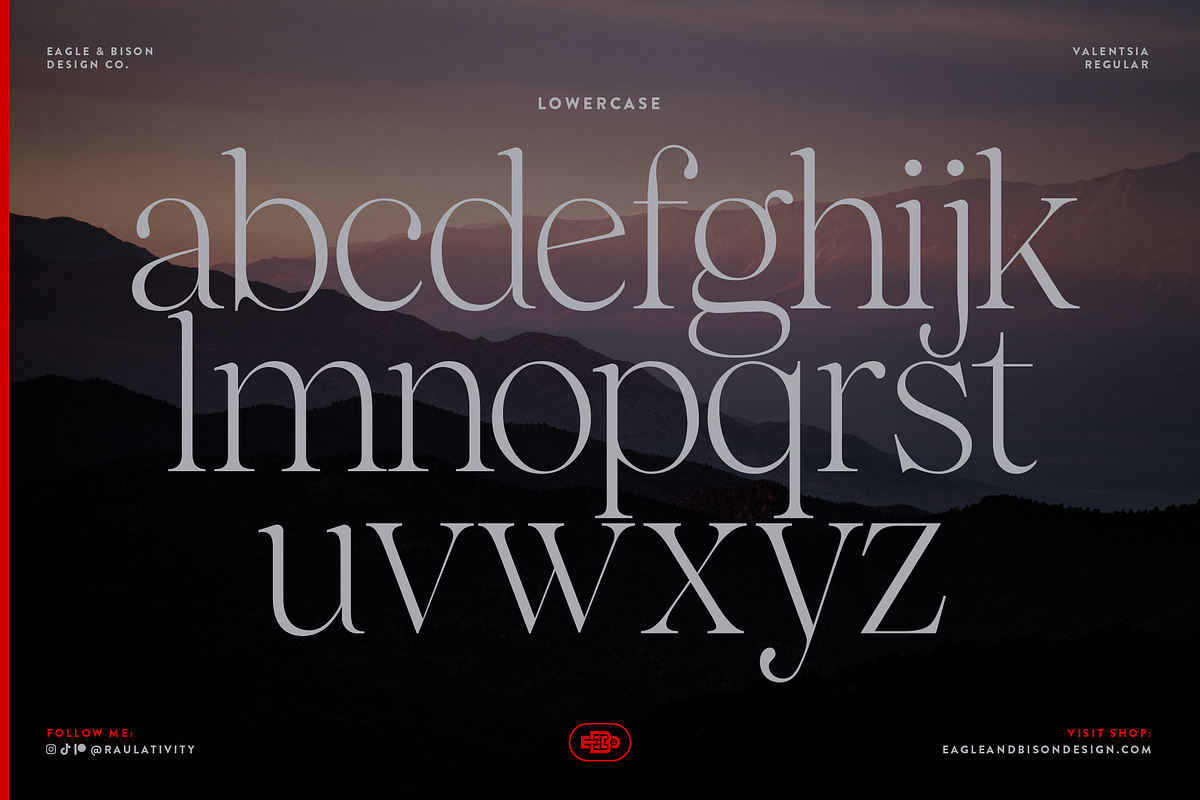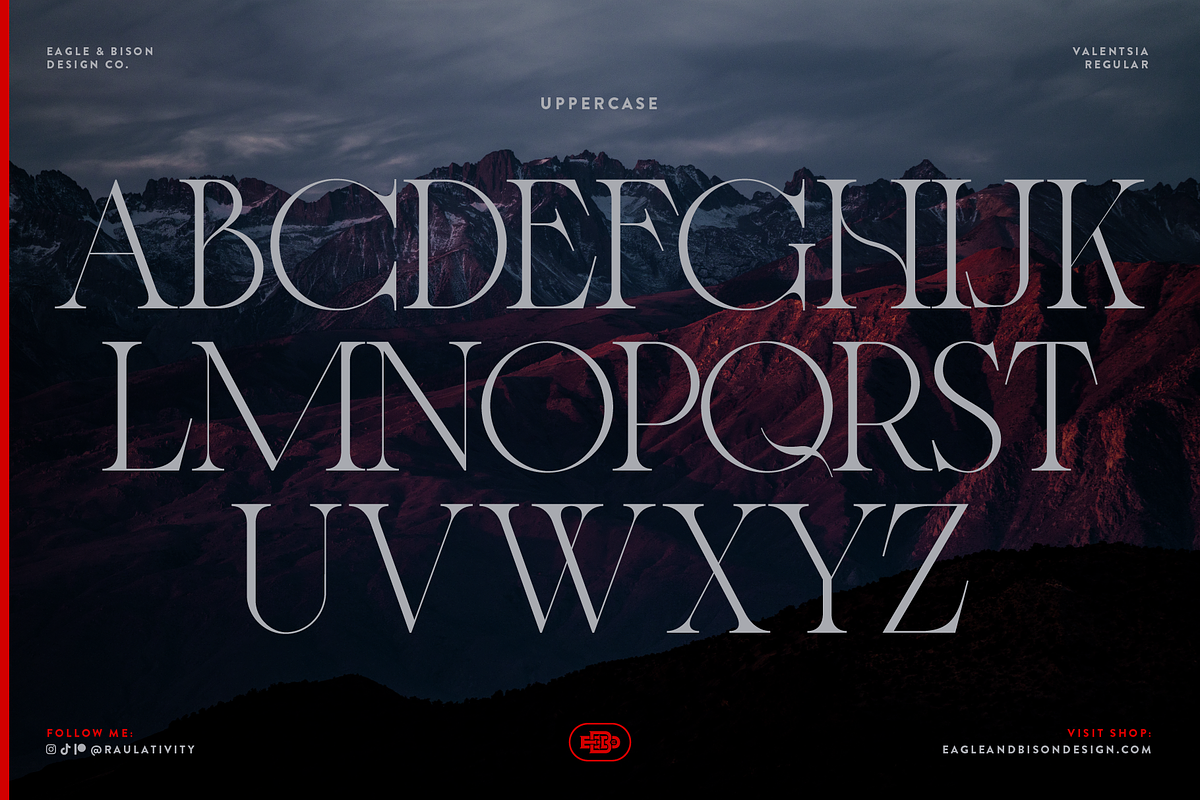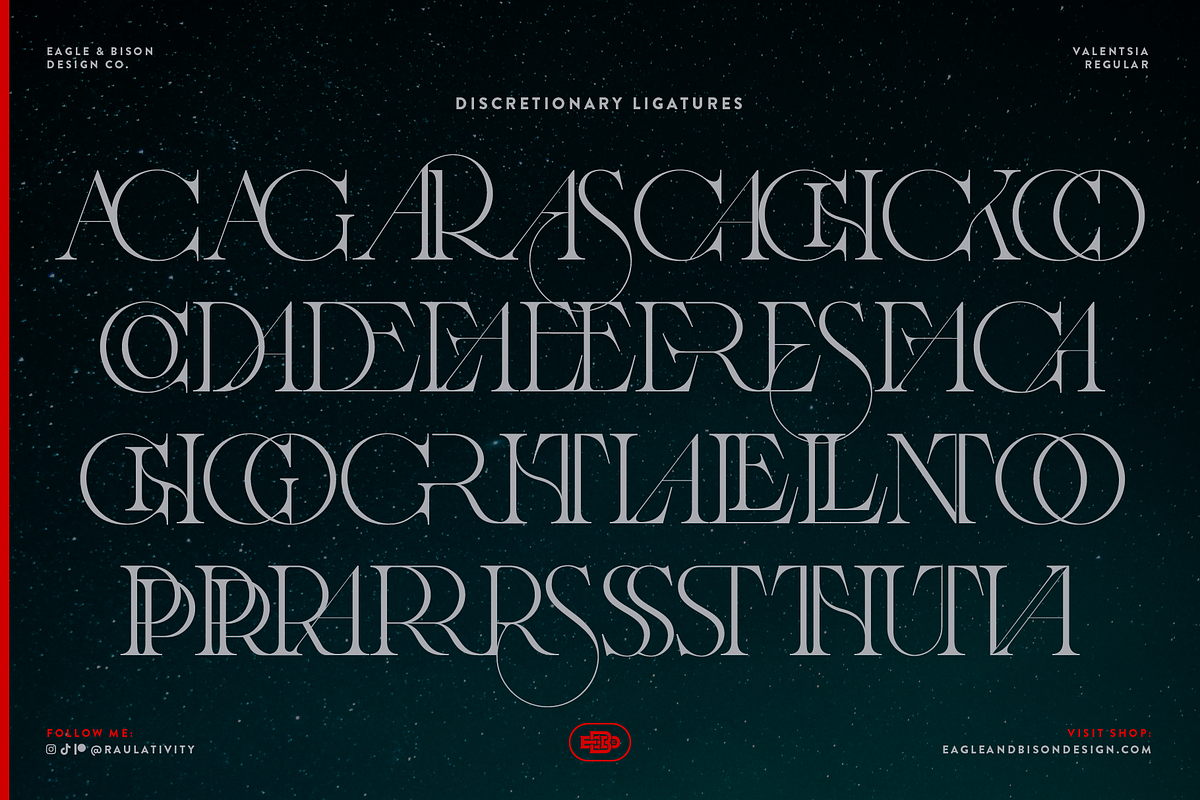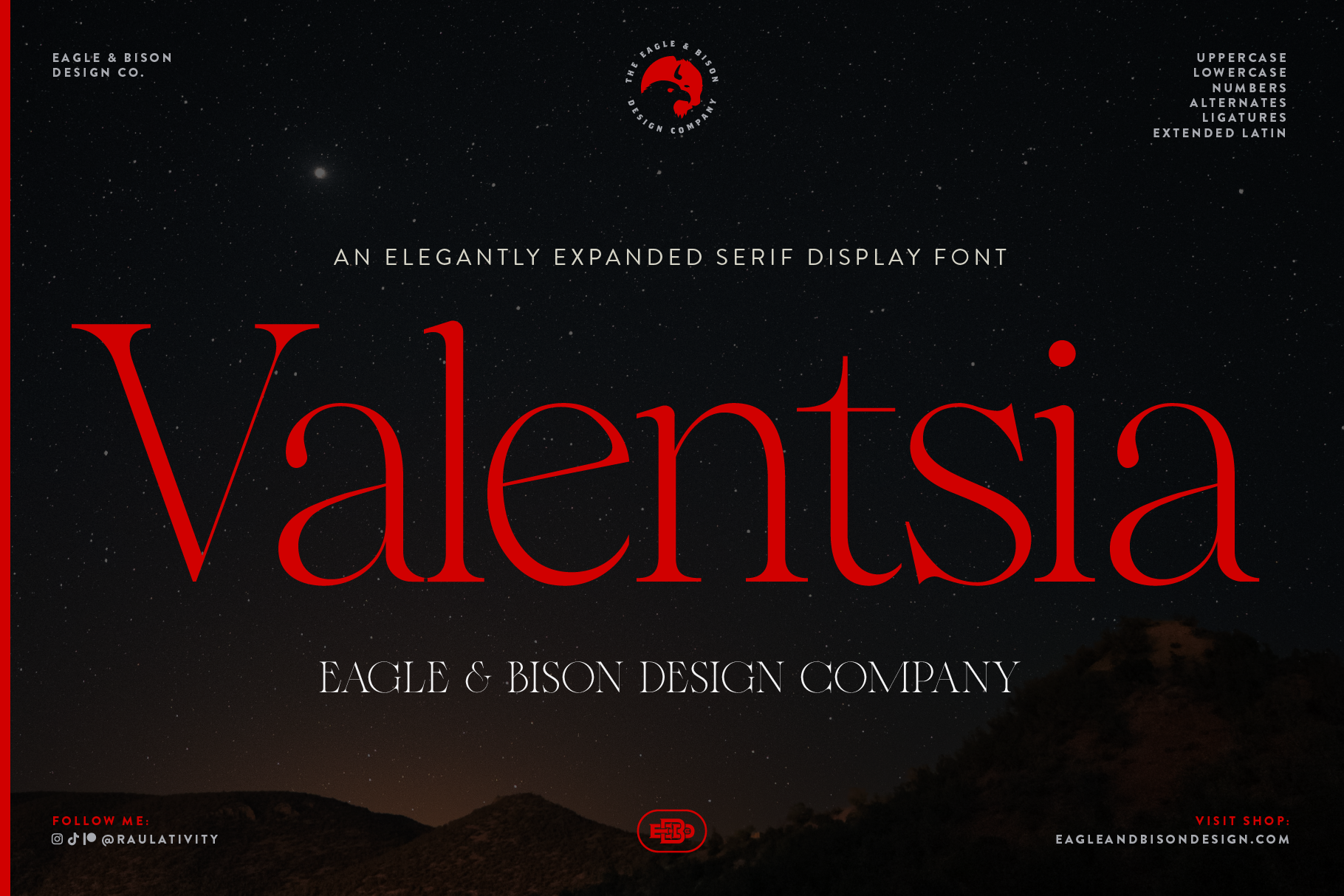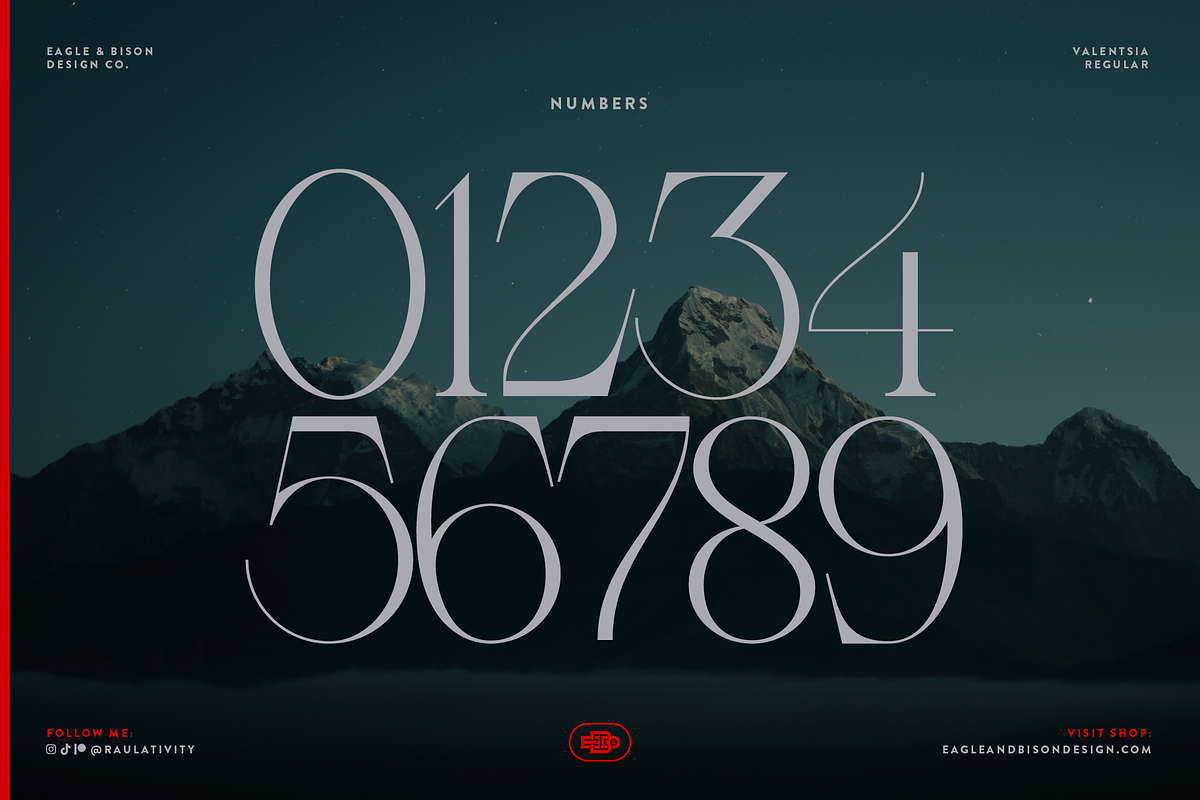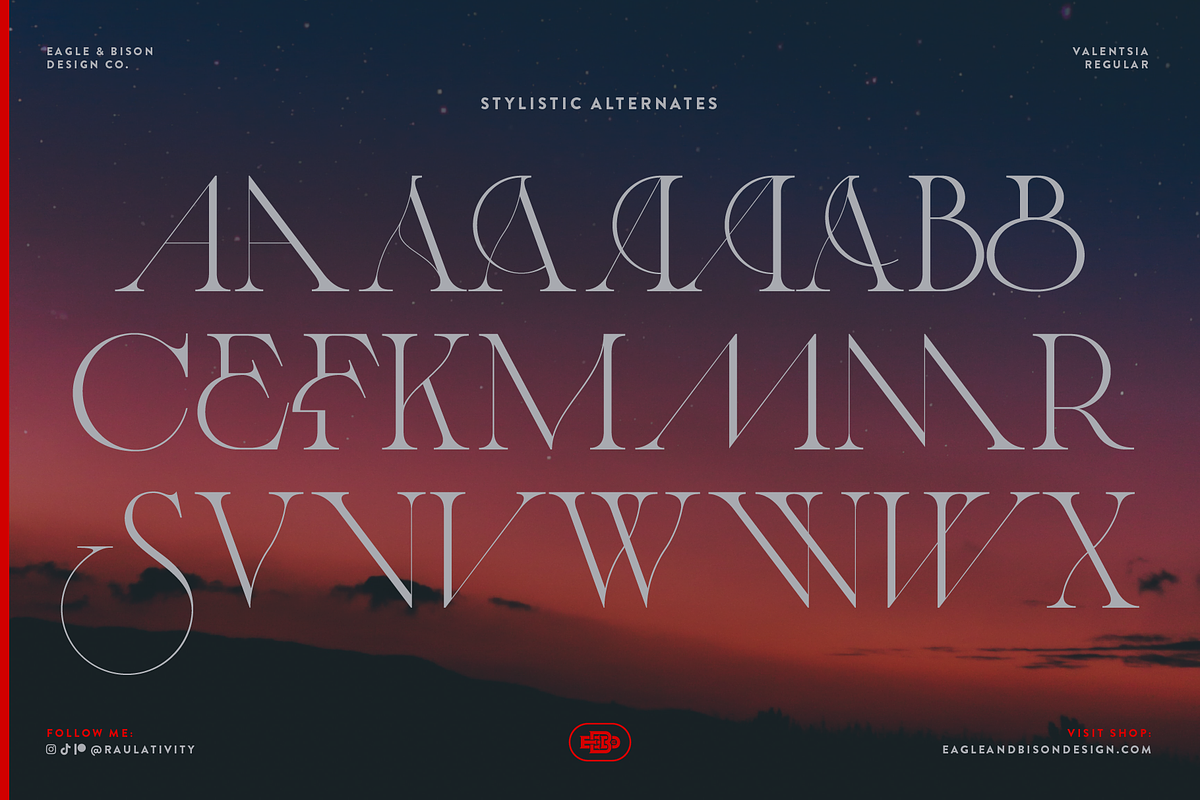
Valentsia - A Serif Display Font
The updated Valentsia now includes 516 glyphs, featuring uppercase and newly added lowercase letters, numerals, punctuation, 26 alternate characters, 36 discretionary ligatures, and a range of special characters. This version also adds extended Latin support for multi-language use. Valentsia is suitable for branding, editorial work, packaging, and general display typography.